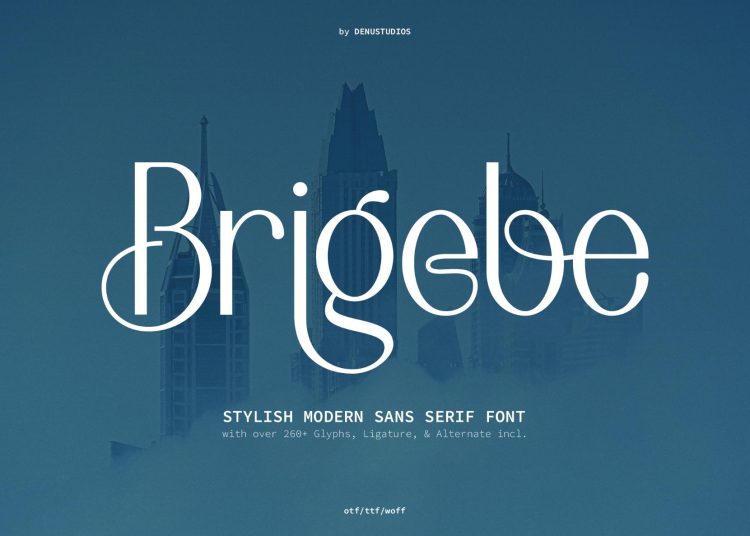
Brigebe Font
Brigebe Font is a stylish modern sans-serif typeface, perfect for adding a sleek and contemporary touch to any design. Its clean lines and balanced proportions make it ideal for a variety of creative projects, from product packaging to promotional materials. Whether you’re designing mugs, quotes, posters, shopping bags, t-shirts, book covers, or name cards, Brigebe brings a refined, modern flair to your work, elevating the visual appeal of every project it graces.
This versatile font shines in both large and small sizes, making it suitable for a wide range of applications, including invitations, greeting cards, labels, photography, and watermarks. Its minimalist design ensures that it complements both bold and subtle design elements, making it the perfect choice for special events and high-end projects. Brigebe is also a great option for branding, ensuring a polished and professional aesthetic across various media.
The font’s clean and sharp design allows for easy readability, making it an excellent option for both headlines and body text. With its modern and stylish appearance, Brigebe ensures that your designs stand out, making it a go-to choice for contemporary and sophisticated projects that need to convey a sense of elegance and simplicity.